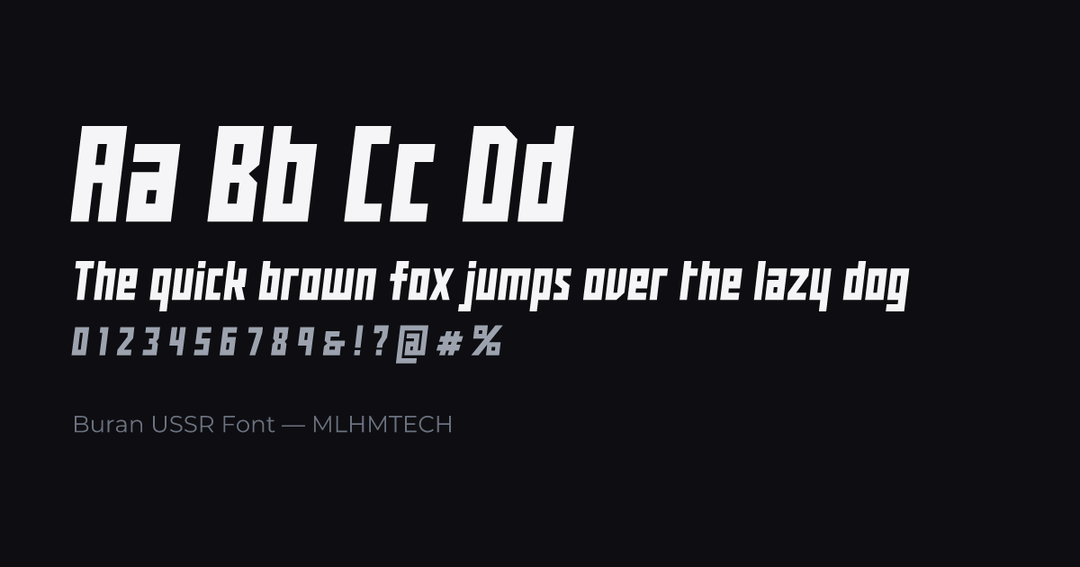
Buran USSR Font
Buran USSR is a bold, retro font inspired by Soviet-era design. Ideal for posters, logos, and any project needing a touch of historical grit.
Buran USSR is a display typeface that captures the spirit of Soviet-era propaganda and industrial design. Its strong, geometric letterforms are both commanding and nostalgic, making it perfect for headlines, posters, and branding that requires a bold, historical voice.
This font includes Cyrillic characters, making it versatile for projects targeting Russian-speaking audiences or those seeking an authentic Soviet aesthetic. The font is provided in TTF format, ensuring compatibility with most design software.
Whether you're creating a retro-themed poster, a YouTube thumbnail, or a logo for a streetwear brand, Buran USSR adds a distinctive, powerful character that stands out.